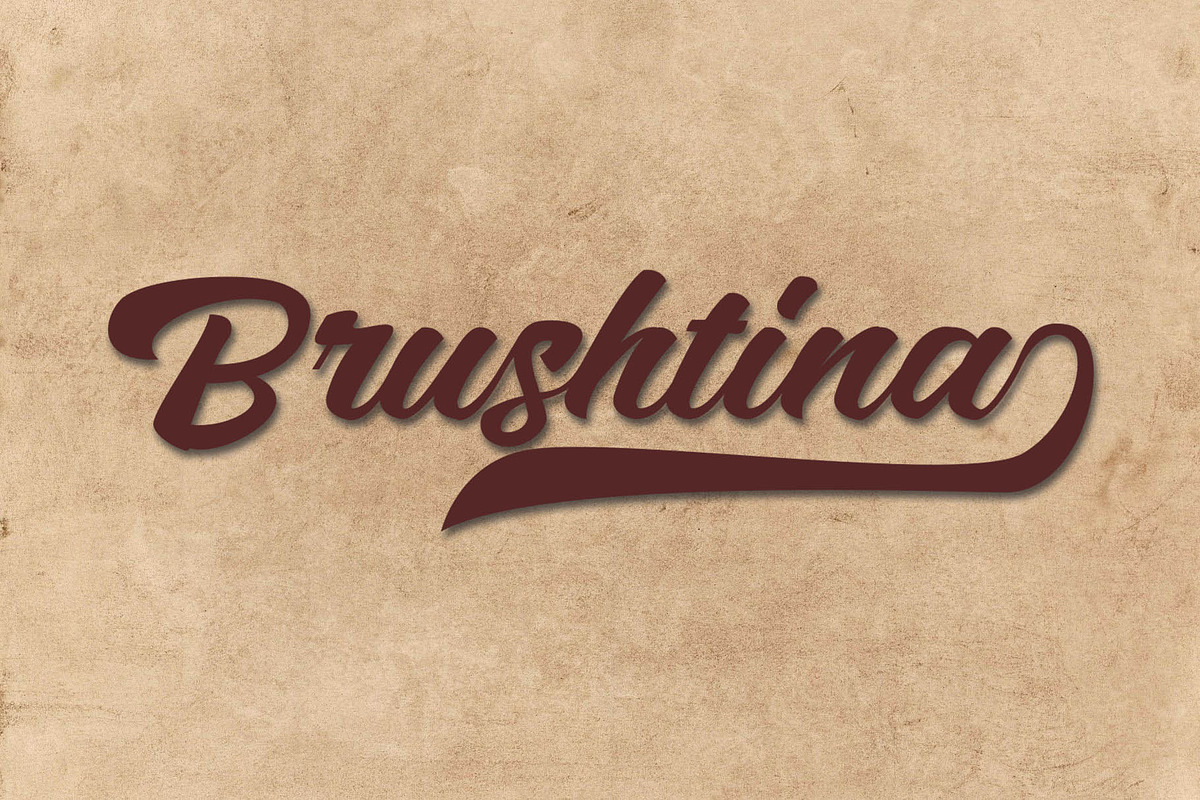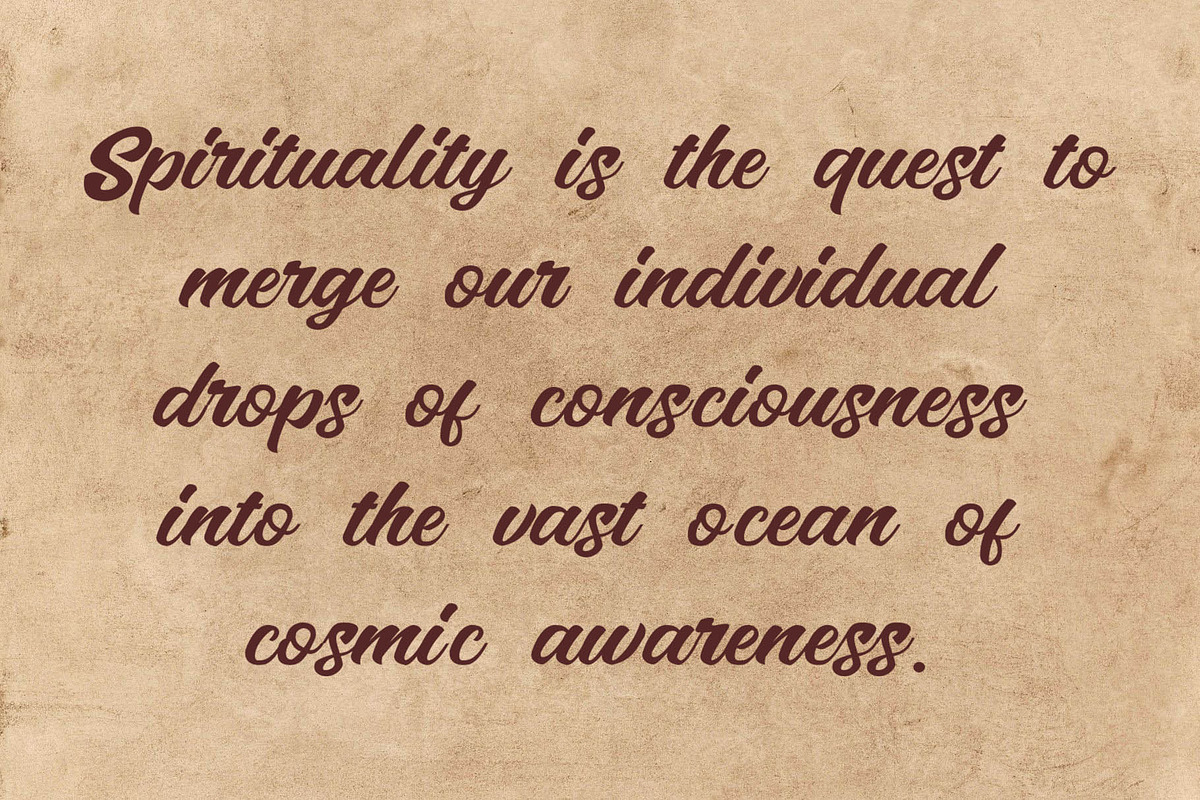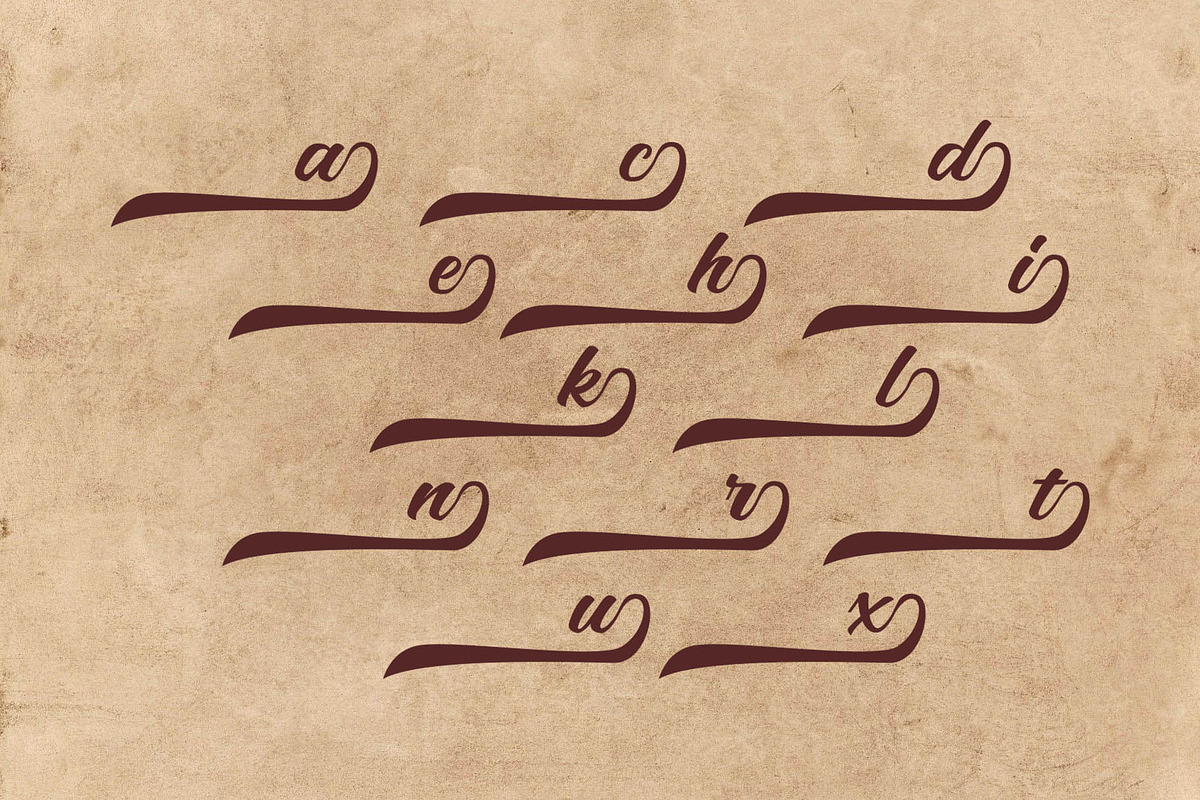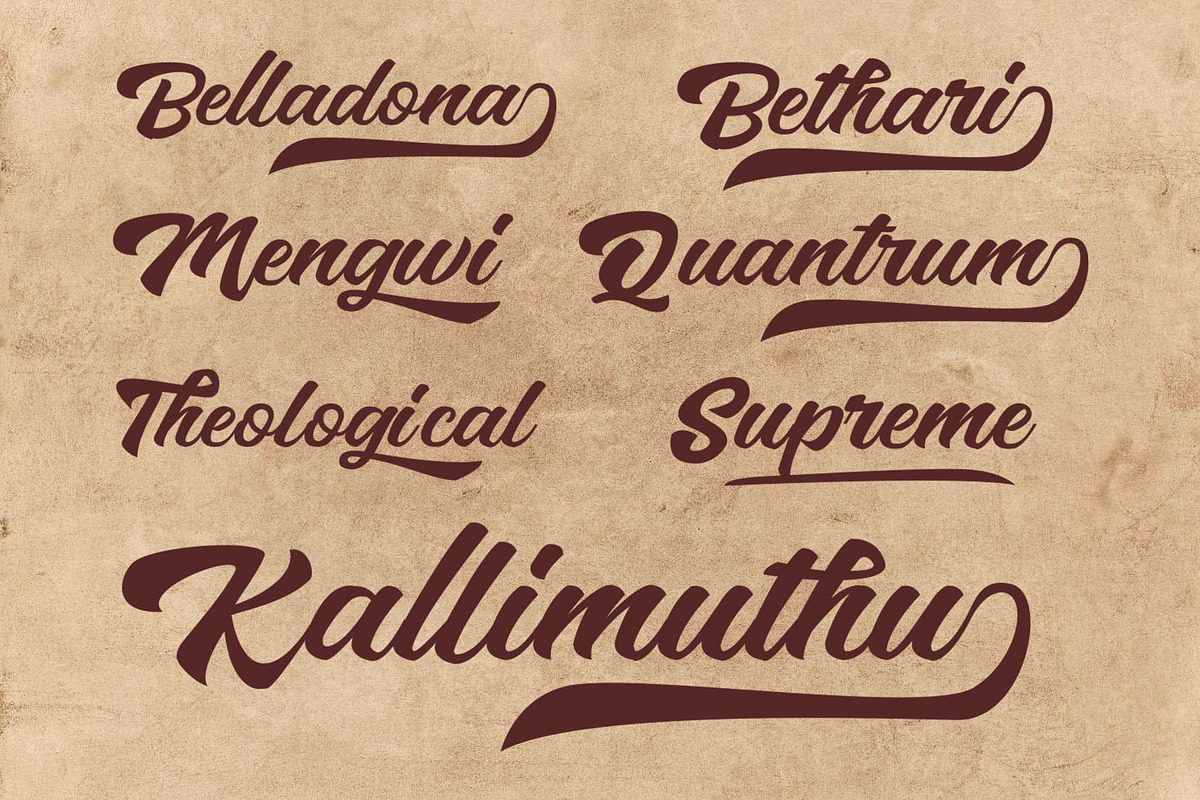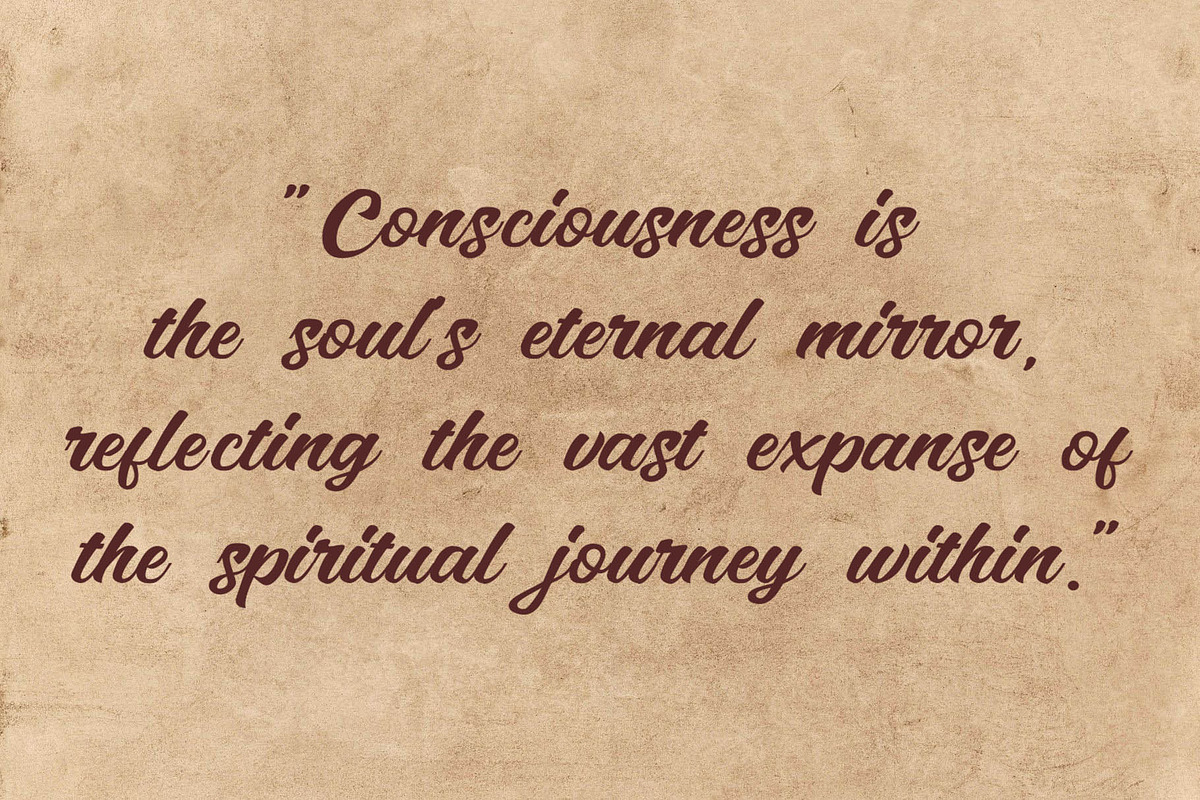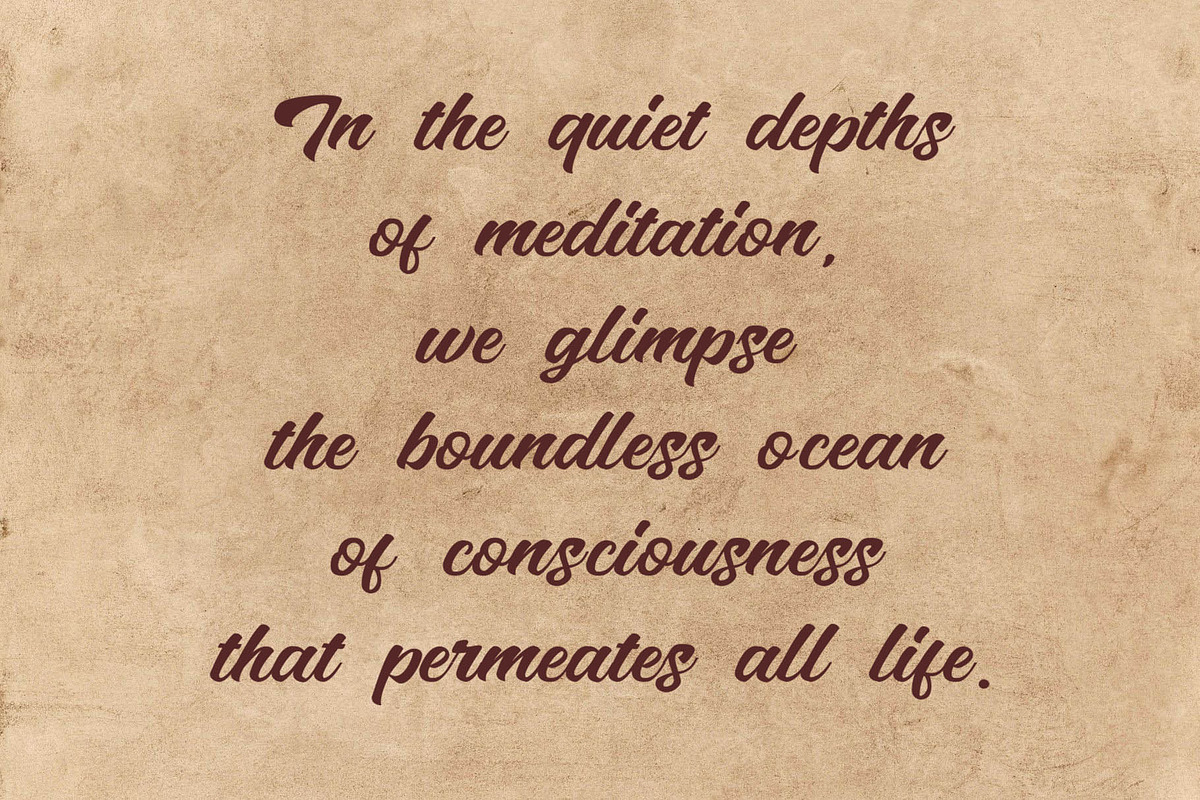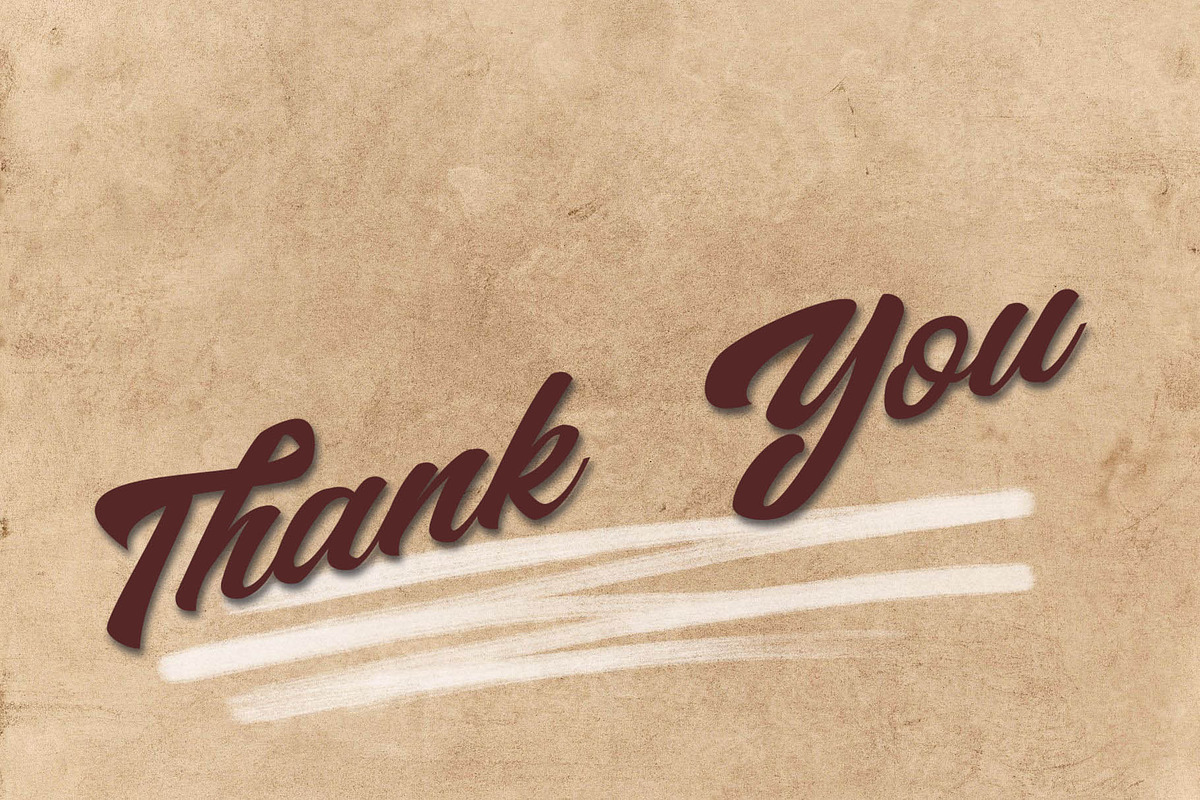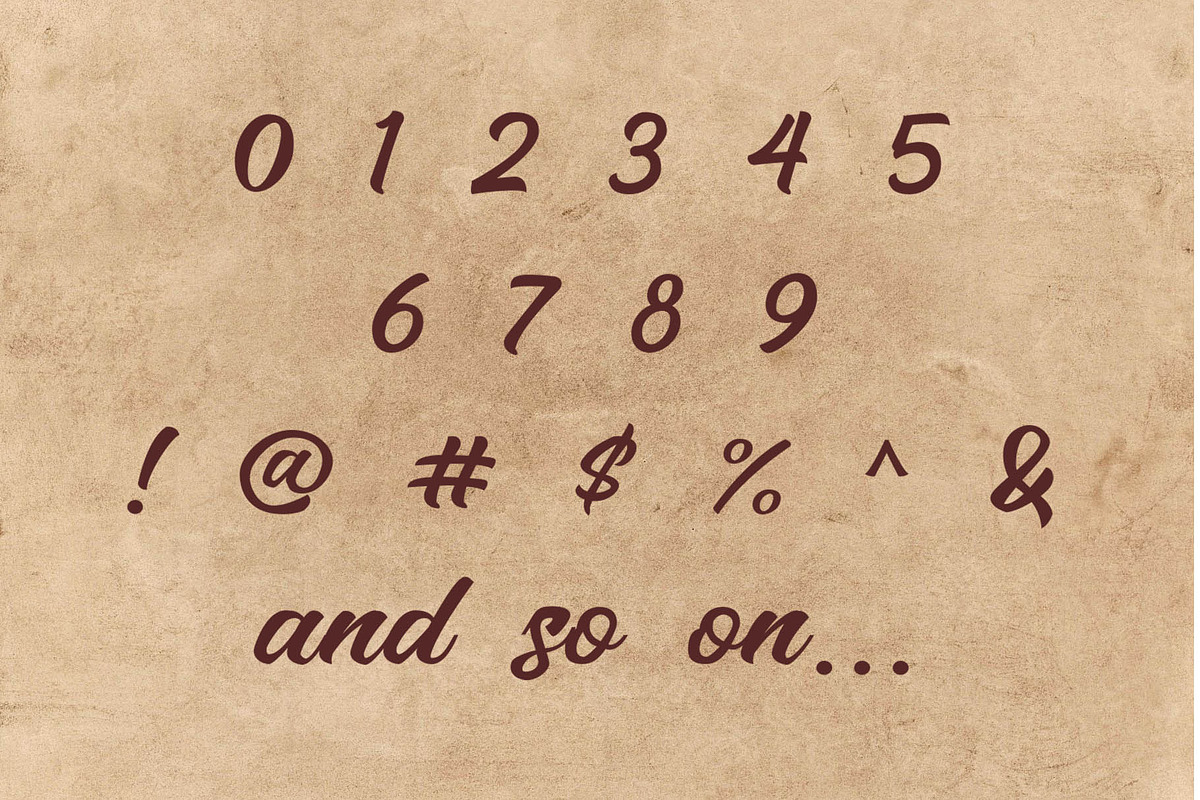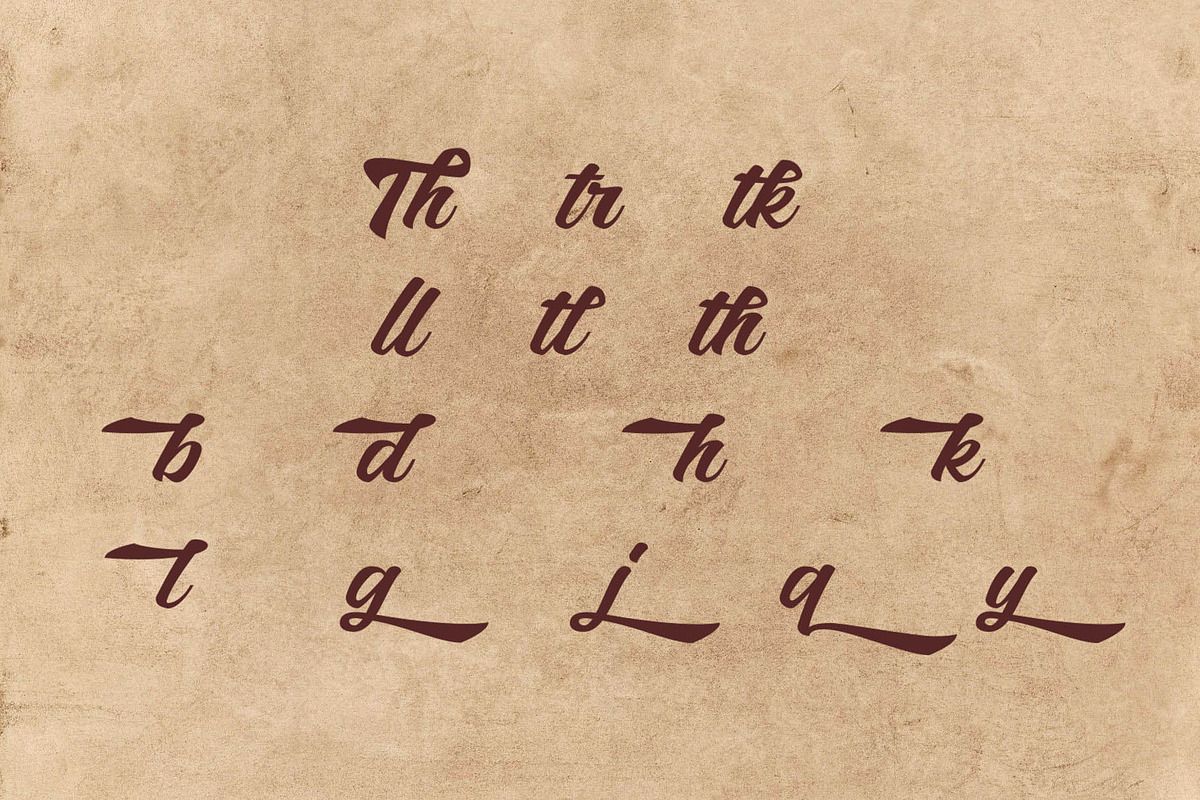
Brushtina Brush Font
Discover the Exquisite Brushtina Brush Font - A Perfect Blend of Elegance and Creativity!
Brushtina Brush Font is a stunning typographic masterpiece that will elevate your design projects to new heights. This handcrafted font exudes a perfect balance between elegance and artistic flair, making it ideal for a wide range of creative endeavors.
Crafted with meticulous attention to detail, Brushtina Brush Font brings a touch of sophistication and uniqueness to your designs. Whether you're working on branding, logo design, invitations, or social media graphics, this versatile font will effortlessly capture your audience's attention.
The flowing brush strokes of Brushtina Brush Font exude an organic charm, while its flawless legibility ensures readability in various sizes. Its exceptional versatility extends to both print and digital media, making it a must-have asset for designers, artists, and creatives alike.
Unlock the artistic potential of your projects with Brushtina Brush Font and experience the seamless blend of elegance and creativity it offers. Embrace the allure of this one-of-a-kind font and elevate your designs to a whole new level of brilliance!